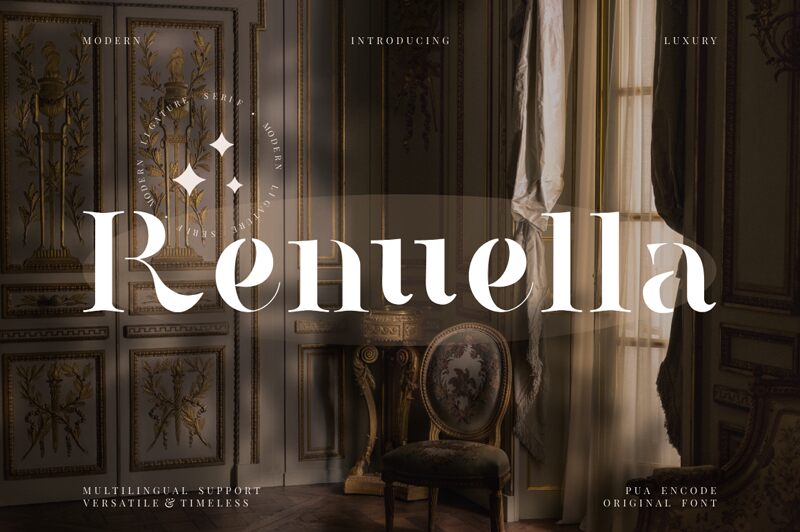
Renuella Stencil font by FinTypeStudio combines an elegant and modern style with a sophisticated theatrical flair. Expressive and luxurious, this font’s refined serifs add a touch of artistic sophistication. Well-balanced letters make it suitable for formal uses that require clean presentations.
Common applications include magazine headlines, monograms, logos, invitations, posters, packaging designs, quotes, social media posts and more. This stylish premium upgrade on the classic serif expands branding possibilities by encouraging creative use case experimentation across various mediums.